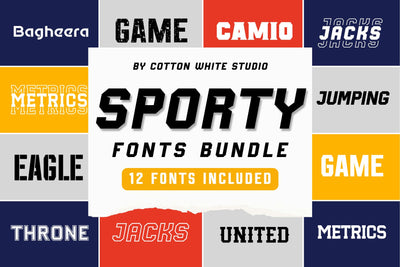
Sporty Font Bundle
Introducing our newest font bundle - a collection of 12 sporty fonts perfect for prints, t-shirts, mugs, social media, advertising, headlines and much more.